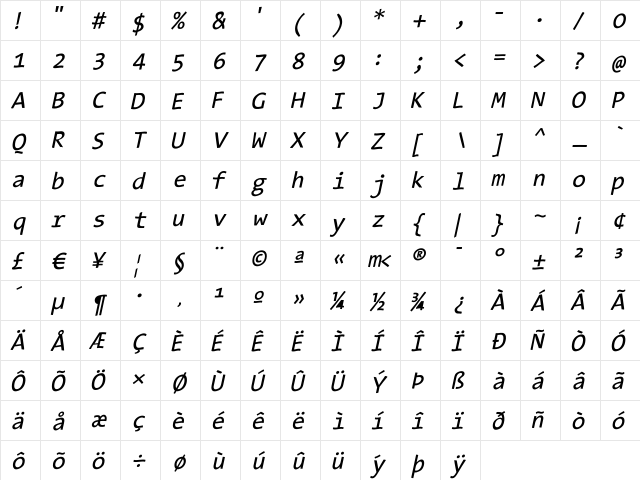
TypeWritersSubstitute Medium Italic
Design Context for TypeWritersSubstitute Typeface
TypeWritersSubstitute uses fixed-width spacing throughout, giving it the structured, systematic character associated with coding environments and technical documentation. The dynamic lean of this cut emphasises speed and emphasis in any layout.
Pro Tip: Use TypeWritersSubstitute with slightly increased line-height for extended reading — fixed-width spacing can feel dense in longer passages without extra breathing room.